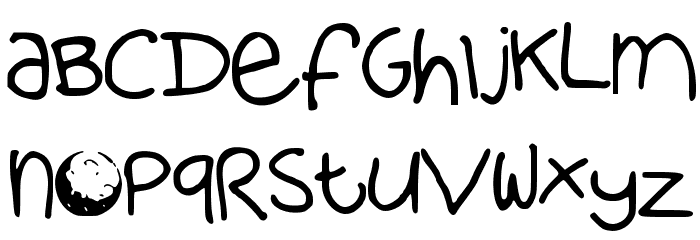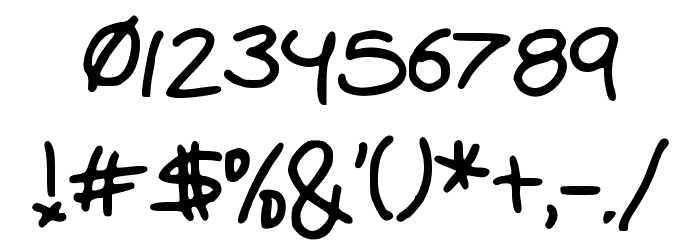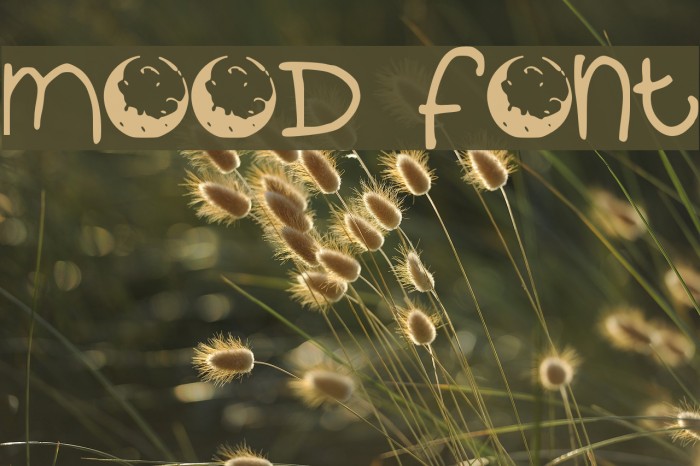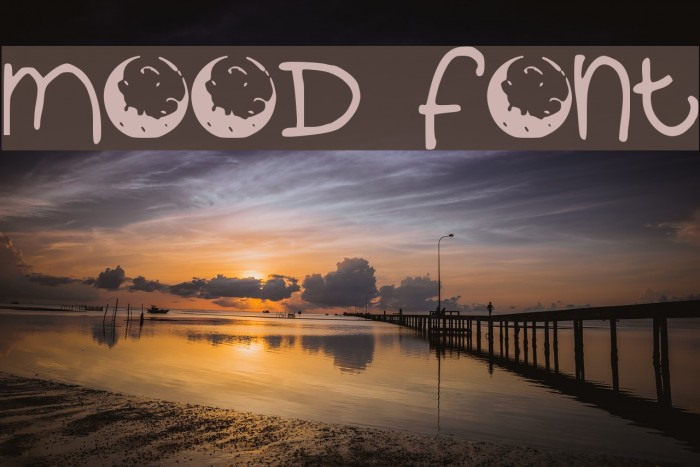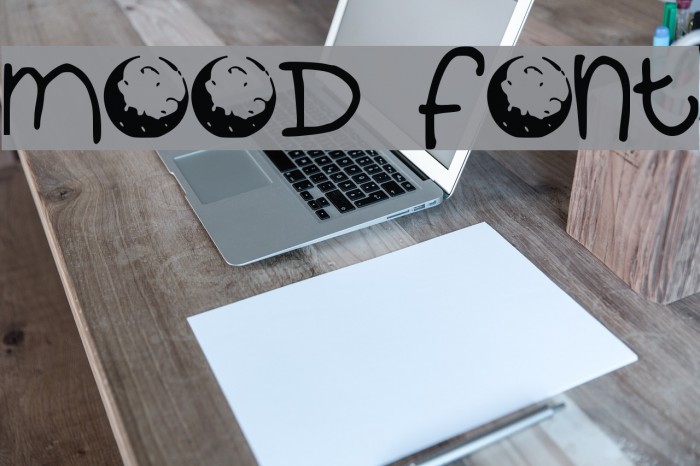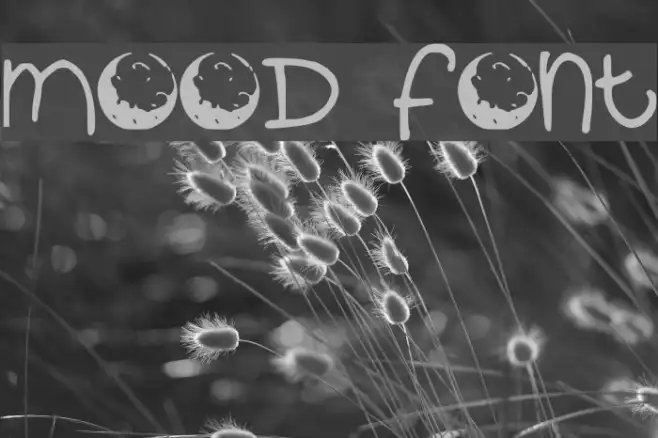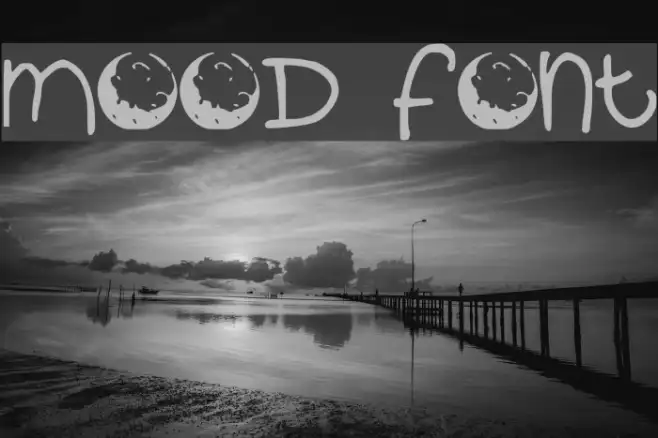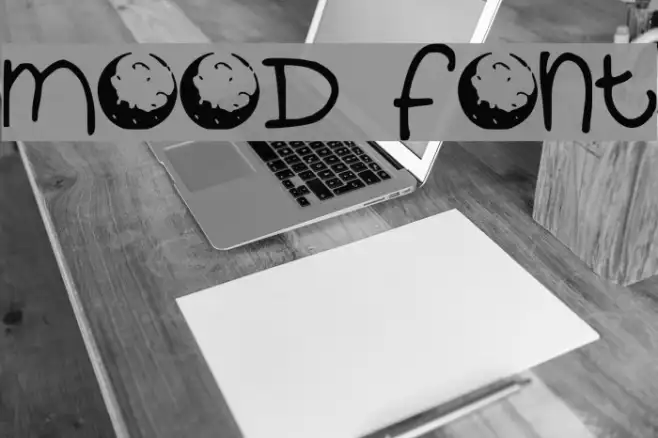
mood Font
This playful and whimsical font features a handwritten style with a casual and informal appearance. The letters are slightly irregular, giving it a charming and approachable feel. The strokes are smooth and rounded, with a consistent thickness that maintains readability. The font includes both uppercase and lowercase letters, numbers, and a variety of special characters, making it versatile for different uses. Its unique character is enhanced by the inclusion of a moon-like symbol, adding a touch of creativity and fun.
A playful handwritten font with smooth, rounded strokes and a whimsical style.
- Proposed Projects: Ideal for children's books, greeting cards, playful branding, and creative projects that require a friendly and informal touch.
- Overall Style: Playful
- Use Case: Headlines, Logos, Creative projects